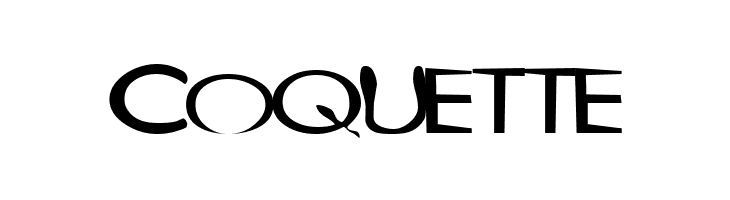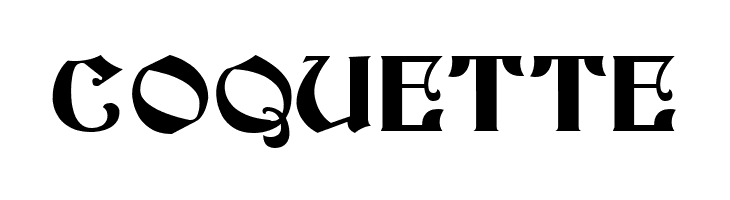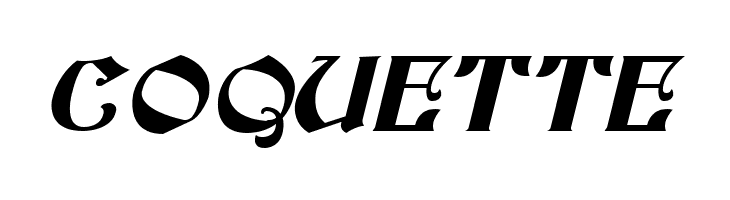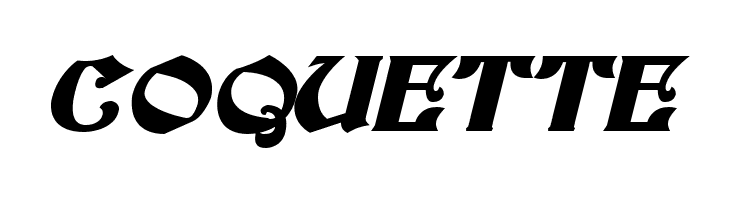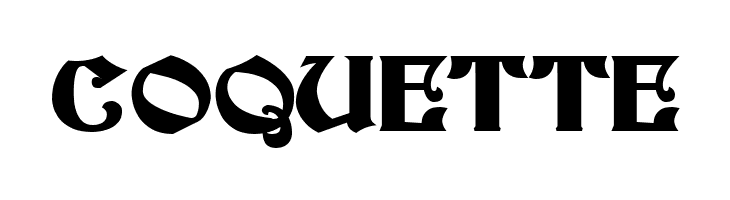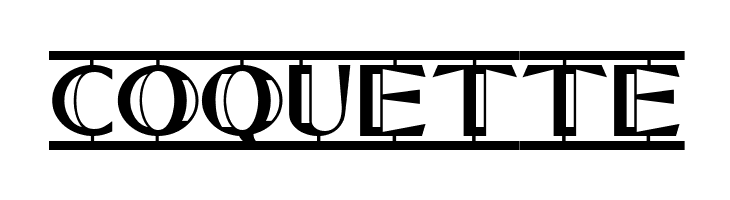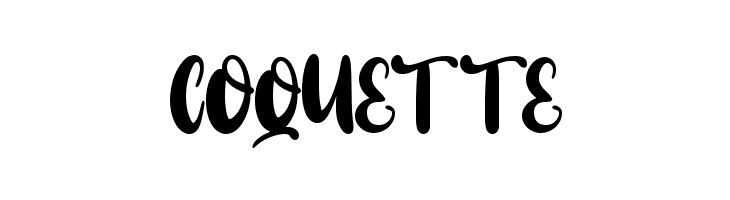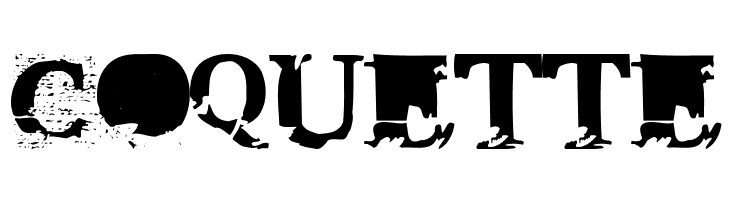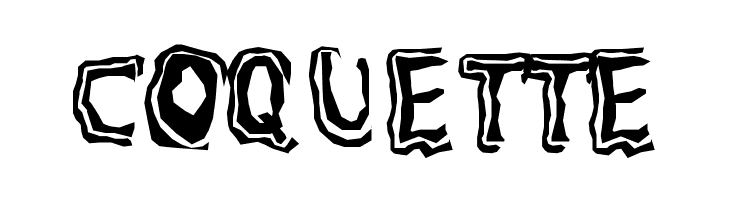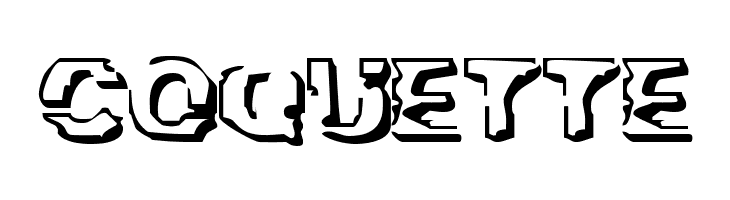
A bold, graffiti-inspired font with dynamic, hand-drawn strokes.
A bold, geometric font with a retro, angular design.
A bold, decorative font with a unique layered outline effect.
A bold, playful font with layered outlines and a retro vibe.
A bold, flowing script font with a lively, tropical vibe.
A bold, geometric font with dramatic, decorative elements.
A bold, decorative font with geometric elements and high contrast strokes.
A bold, distressed font with a grunge aesthetic and rugged texture.
A bold, rounded font with a playful and modern style.
A playful, rounded font with bold, smooth curves and a friendly appearance.
A bold, dramatic Blackletter-style font with sharp serifs and historical elegance.
A bold, medieval-inspired font with angular lines and intricate serifs.
A bold, italicized blackletter-inspired font with dramatic curves and angular lines.
A bold, italic font with sharp, angular strokes and a dynamic style.
A playful and quirky font with twisted, irregular characters.
A bold, dynamic font with angular shapes and a modern, edgy style.
A pixelated, digital-style font with a retro, textured appearance.
Bold, cut-out style decorative font.
A bold, high-contrast font with gothic influences and decorative serifs.
A bold, distressed font with a rugged, hand-painted texture.
A bold, distressed font with a rugged, grunge-like appearance.
A bold, italicized font with a modern, edgy, and dynamic style.
A bold, italic, punk-inspired font with jagged edges and dynamic energy.